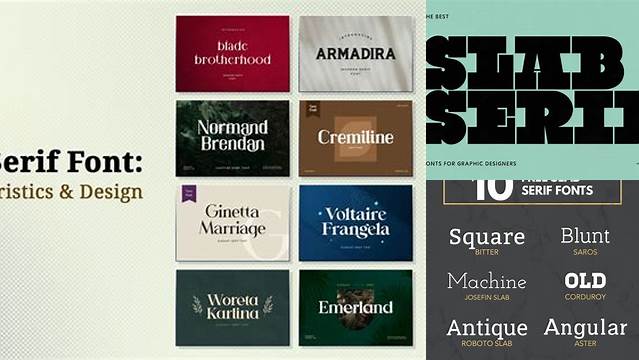
Slab Serif Fonts: A PowerPoint Guide
Hey guys! Ever wondered how to make your PowerPoint presentations pop? One way to do it is by choosing the right font. And if you’re aiming for something bold, impactful, and yet super readable, slab serif fonts might just be your new best friend. In this guide, we're diving deep into the world of slab serif fonts and how you can use them effectively in your PowerPoint presentations. We'll cover everything from what slab serifs are to specific font recommendations and design tips. Let's get started!
1. What are Slab Serif Fonts?
So, what exactly are slab serif fonts? Well, imagine a serif font, but with the little strokes (the serifs) at the ends of the letters being thick and block-like. Think of them as the strong, confident cousins of traditional serif fonts like Times New Roman. Slab serifs have a geometric and sturdy appearance, making them perfect for headlines, titles, and anywhere you want to grab attention. They’ve got this vintage-meets-modern vibe that can add a ton of personality to your slides. Historically, they were super popular in advertising and posters because they’re just so darn readable even from a distance. In the digital world, slab serifs bring that same clarity and impact, making them a fantastic choice for your PowerPoint presentations. Whether you’re presenting data, pitching an idea, or just want to make your slides visually engaging, slab serifs can help you nail that first impression. They’re bold, they’re clear, and they’re definitely a font choice that says, "Hey, pay attention!"
2. Why Use Slab Serif Fonts in PowerPoint?
Why should you even bother using slab serif fonts in PowerPoint? Great question! Slab serifs bring a unique blend of readability and visual punch that can seriously elevate your presentations. These fonts are designed to be noticed. Their thick, blocky serifs create a strong visual presence, ensuring your message gets across loud and clear. In a room full of busy visuals and potentially drowsy audience members, that’s a huge win! Plus, slab serifs have a fantastic ability to convey confidence and authority. They’re bold and decisive, which can be perfect for pitching ideas, presenting data, or making key points. Beyond their impact, slab serifs offer versatility. They work well in both headlines and body text, though they truly shine in titles and headers. This means you can create a cohesive and professional look throughout your presentation. And let’s not forget the cool factor. Slab serifs have a bit of a retro charm, reminiscent of vintage posters and advertisements, which can add a unique and stylish flair to your slides. So, if you’re looking to make a lasting impression, slab serif fonts in PowerPoint are definitely worth exploring.
3. Best Slab Serif Fonts for PowerPoint Headlines
When it comes to PowerPoint headlines, you want a font that commands attention, right? That's where slab serif fonts really shine. Think about it – your headlines are the first thing your audience sees, so they need to be impactful and easy to read. A great slab serif can deliver both. One top pick is “Roboto Slab.” It’s clean, modern, and super versatile. It's got that friendly vibe while still looking professional. Another fantastic option is “Arvo.” This one’s got a bit more of a geometric feel, making it great for tech-related presentations or anything that needs a touch of modern sophistication. “Playfair Display” is another solid choice if you want something with a touch of elegance. It's a bit more stylized, so it’s perfect for adding a bit of flair without sacrificing readability. And let’s not forget “ChunkFive.” If you need something seriously bold and attention-grabbing, this is your go-to. It’s big, it’s blocky, and it’s impossible to ignore. When choosing a slab serif for your headlines, consider the overall tone of your presentation. Do you want to come across as modern and tech-savvy? Or perhaps more classic and authoritative? The right font can help you set the stage and keep your audience hooked from the first slide.
4. Top Slab Serif Fonts for PowerPoint Body Text
Choosing a font for your PowerPoint body text is a different ballgame than picking one for your headlines. Sure, you still want something stylish, but readability is king here. Your audience needs to be able to follow your points without straining their eyes. So, what slab serifs work best for those paragraphs of info? “Roboto Slab,” which we mentioned earlier for headlines, is actually a fantastic choice for body text too. It’s super clean and legible, even at smaller sizes. Plus, its open letterforms make it easy on the eyes. Another great option is “Lora.” This one has a slightly more traditional feel, making it a good fit if you want a touch of classic elegance without sacrificing clarity. “Slabo 13px” and “Slabo 27px” are designed specifically for on-screen readability, so they’re excellent choices if your presentation will be viewed primarily on digital devices. The different pixel sizes help optimize the font's appearance at various scales. When selecting a slab serif for body text, always think about how it looks in longer paragraphs. Is it easy to read? Does it feel cluttered? A good rule of thumb is to stick with fonts that have a generous x-height (the height of the lowercase letters) and consistent spacing. This will help ensure your message gets across clearly and comfortably.
5. How to Pair Slab Serif Fonts with Other Fonts
Okay, so you’ve got your awesome slab serif font, but how do you make it play nice with other fonts in your presentation? Font pairing is an art, guys, but it doesn't have to be intimidating. The key is to create contrast while maintaining harmony. Think of it like mixing flavors in cooking – you want complementary tastes that create a balanced dish. When pairing slab serifs, a classic approach is to combine them with sans-serif fonts. Sans-serifs, with their clean, modern lines, offer a nice counterpoint to the bolder, more traditional feel of slab serifs. For example, you might use a slab serif for your headlines (like “Roboto Slab” or “Arvo”) and then pair it with a sans-serif like “Open Sans” or “Lato” for your body text. This creates a visual hierarchy that’s easy on the eyes. Another strategy is to pair different weights and styles within the same font family. For instance, you could use a bold slab serif for headlines and a regular or light weight of the same font for body text. This creates a cohesive look while still providing enough contrast to guide the viewer’s eye. And here’s a tip: limit yourself to two or three fonts max in your presentation. More than that, and things can start to look cluttered and confusing. A simple, well-executed font pairing can make your slides look polished and professional, helping you deliver your message with style and clarity.
6. Using Slab Serif Fonts for Titles and Subtitles
When it comes to titles and subtitles in your PowerPoint presentation, slab serif fonts can be a total game-changer. Think about it – these are the elements that grab your audience’s attention and guide them through your content. You want something that’s not only readable but also makes a statement. Slab serifs are perfect for this! Their bold, blocky appearance ensures that your titles stand out, making it clear what each section of your presentation is about. Imagine using a font like “ChunkFive” or “Roboto Slab Bold” for your main titles. They’re big, they’re impactful, and they practically shout, “Hey, look at me!” For subtitles, you might want to dial it back just a notch. A slightly lighter weight or a different slab serif altogether can work well. Something like “Arvo” or a regular weight of “Roboto Slab” could be a great fit. The key is to create a visual hierarchy. Your main titles should be the most prominent, followed by your subtitles, and then your body text. This helps your audience easily scan your slides and understand the flow of your presentation. Using slab serifs consistently for your titles and subtitles can also create a strong visual identity for your presentation. It’s like having a consistent voice that ties everything together. So, if you’re looking to add some punch and clarity to your titles, slab serifs are definitely the way to go!
7. Slab Serif Fonts for Callouts and Quotes
Callouts and quotes are prime opportunities to add some visual interest to your PowerPoint slides, and slab serif fonts can help you make them pop. Think of callouts as little nuggets of information – key stats, memorable phrases, or anything else you want to highlight. Slab serifs, with their bold and attention-grabbing nature, are perfect for making these callouts stand out from the rest of your text. Imagine you’re presenting some impressive sales figures. Putting that key number in a slab serif, like “ChunkFive” or “Bebas Neue,” can really drive the point home. Quotes are another area where slab serifs can shine. Whether it’s a famous saying or a testimonial, using a slab serif can give your quote more gravitas and make it feel more important. A font like “Lora” or “Playfair Display” can add a touch of elegance to your quotes while still maintaining that bold, readable quality. When using slab serifs for callouts and quotes, consider using a different size or color to further differentiate them from your body text. You could also place them in a contrasting box or shape to make them even more eye-catching. The goal is to draw attention to these elements and make them memorable. So, if you want your callouts and quotes to leave a lasting impression, give slab serif fonts a try!
8. Color Combinations with Slab Serif Fonts
Color, guys, is a huge part of making your PowerPoint presentation visually appealing, and the colors you choose can either make your slab serif fonts sing or make them fall flat. So, how do you pick the right color combos? A good starting point is to think about contrast. Since slab serifs are already bold and eye-catching, you want to pair them with colors that complement their strength without overpowering them. High-contrast combinations, like a dark slab serif on a light background (or vice versa), are always a safe bet. Think black or dark gray slab serifs on a white or light gray background – classic and super readable. But don’t be afraid to get a little more adventurous! Slab serifs can also look fantastic in vibrant colors, especially when used sparingly. For example, a bright blue or green slab serif headline on a neutral background can really pop. Just make sure your colors are accessible and don’t strain the eyes. Another approach is to use color to create a specific mood or convey a message. Warm colors like red and orange can evoke excitement and energy, while cool colors like blue and green can feel more calm and professional. Consider your presentation’s topic and audience when making your color choices. And remember, consistency is key. Stick to a limited color palette (usually no more than three or four colors) to keep your slides looking polished and professional.
9. Font Size Considerations for Slab Serif Fonts
10. Kerning and Leading Adjustments for Slab Serif Fonts
Kerning and leading – these might sound like fancy typography terms, but they’re super important for making your slab serif fonts look their best in PowerPoint. So, what are they? Kerning refers to the spacing between individual letters, while leading (pronounced “ledding”) is the vertical space between lines of text. Adjusting these settings can dramatically improve the readability and visual appeal of your slides. With slab serif fonts, which tend to have a bolder, more geometric appearance, kerning can be especially crucial. If the letters are too close together, they can look crowded and difficult to read. If they’re too far apart, the text can feel disjointed. The goal is to find that sweet spot where the letters have enough breathing room but still feel connected. Most presentation software has kerning adjustments built in, so you can tweak the spacing to your liking. Leading, on the other hand, affects the vertical flow of your text. If your lines of text are too close together, they can feel cramped and hard to follow. If they’re too far apart, the text can feel disconnected. A good rule of thumb is to set your leading to about 120% to 150% of your font size. For example, if you’re using a 20-point font, your leading might be around 24 to 30 points. Experiment with these settings to see what looks best for your specific slab serif font and slide layout. Small adjustments can make a big difference in the overall look and readability of your presentation.